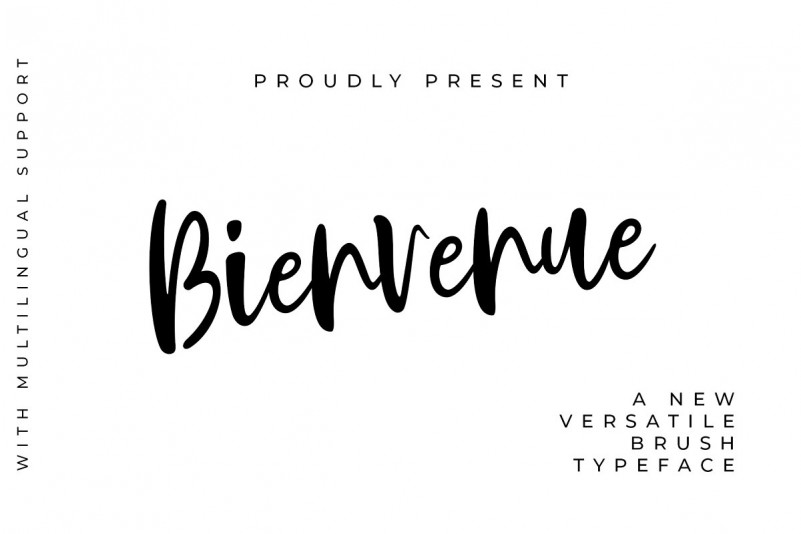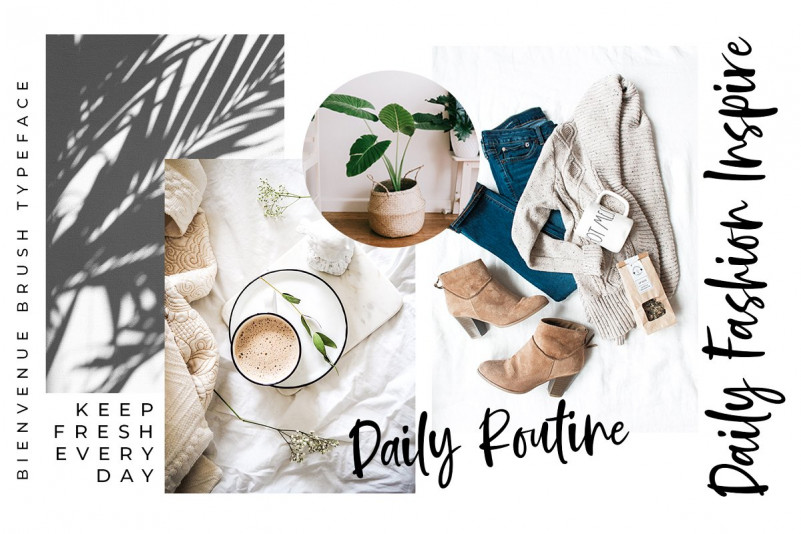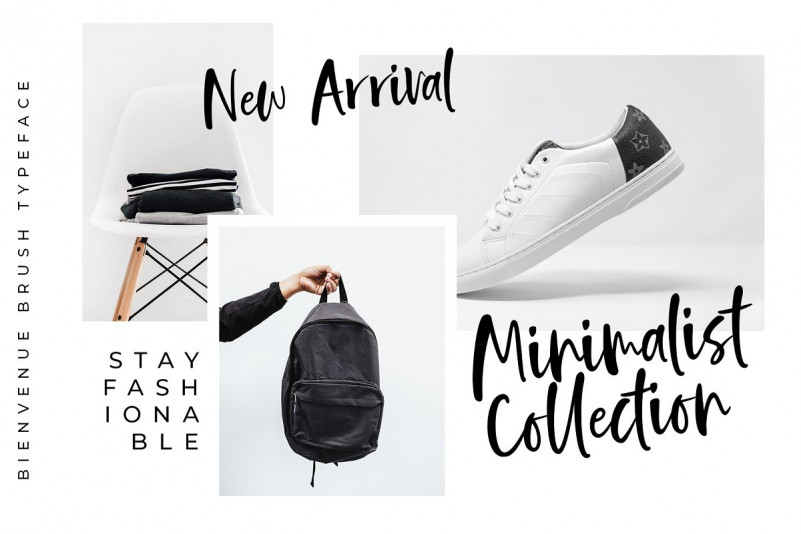
Bienvenue Font
Bienvenue is a quickly handwritten font. Written with a brush pen and tidied up for smooth and balanced results. Suitable for social media, instagram, logos, websites, blogs, home decor, wedding decor, invitations, branding, business cards, and many more!